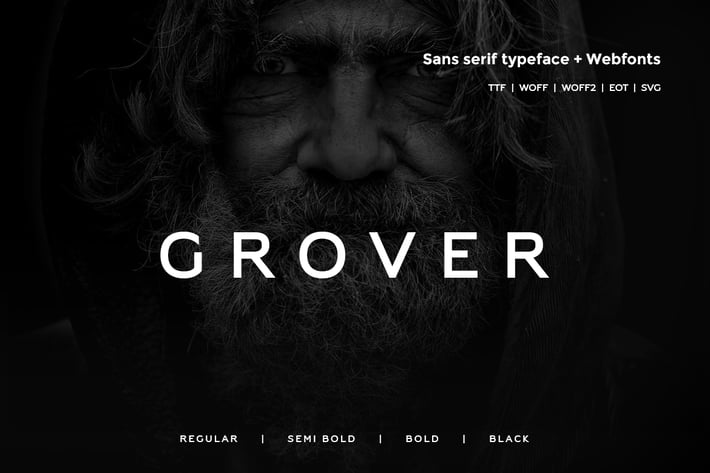
Grover - Modern Typeface + WebFont
Grover Typeface
Grover Sans is a modern and Minimal Sans Serif typeface, Grover Sans can keep the minimalism at its level best and is a Perfect choice for Creative and Classic Typography Designs.